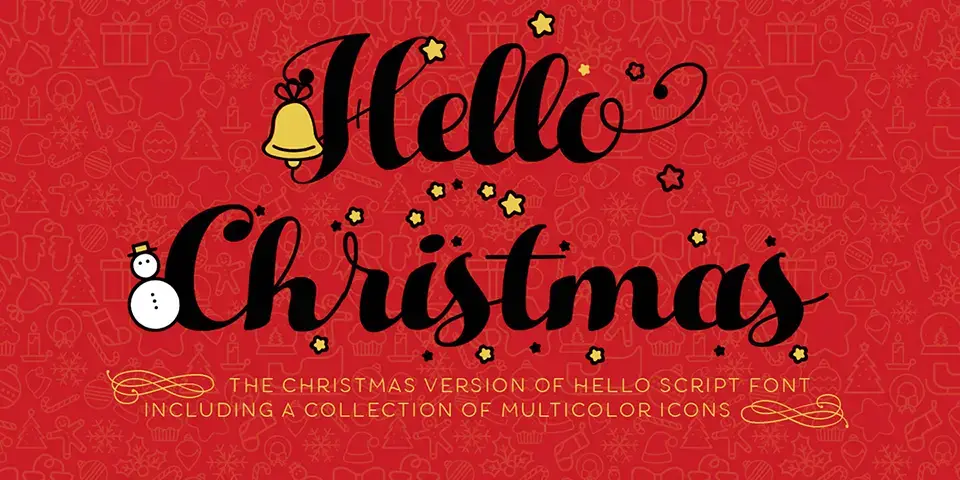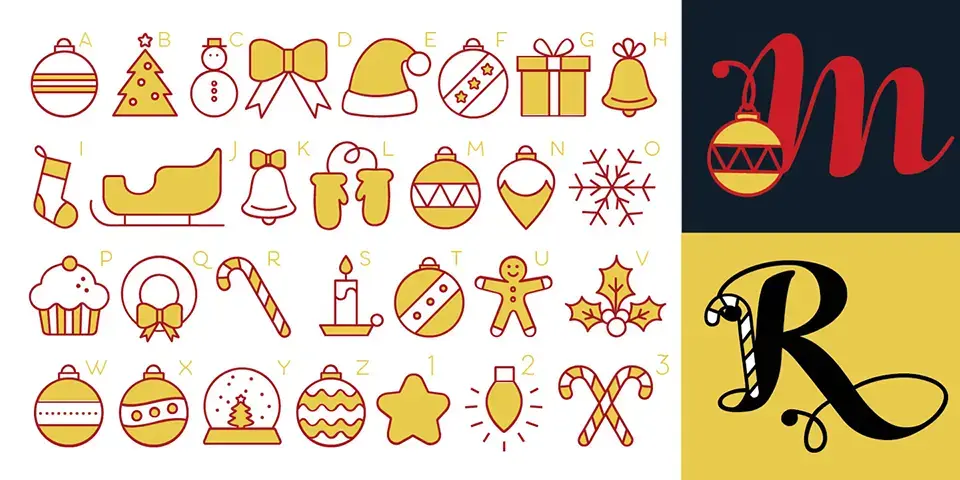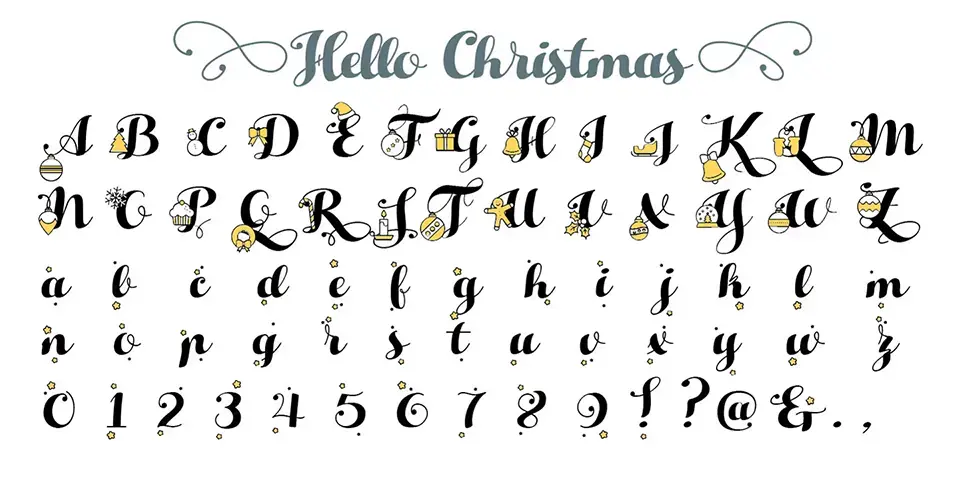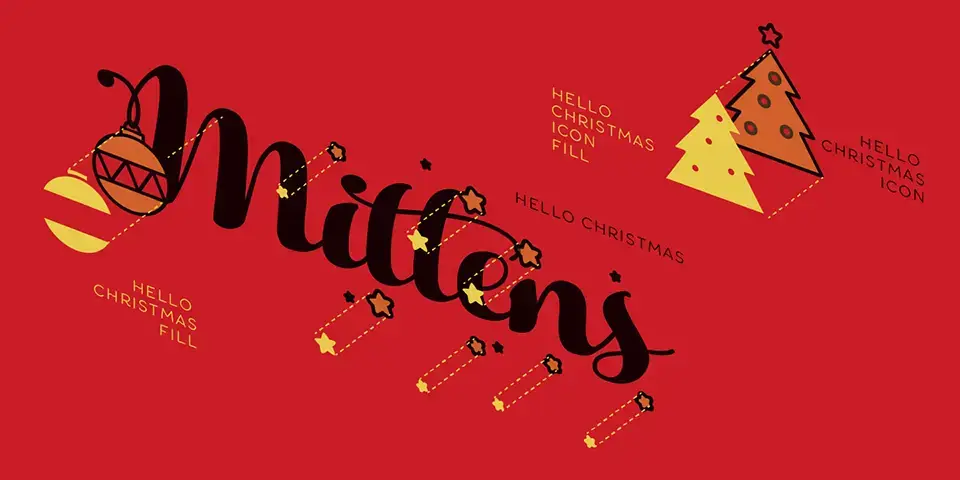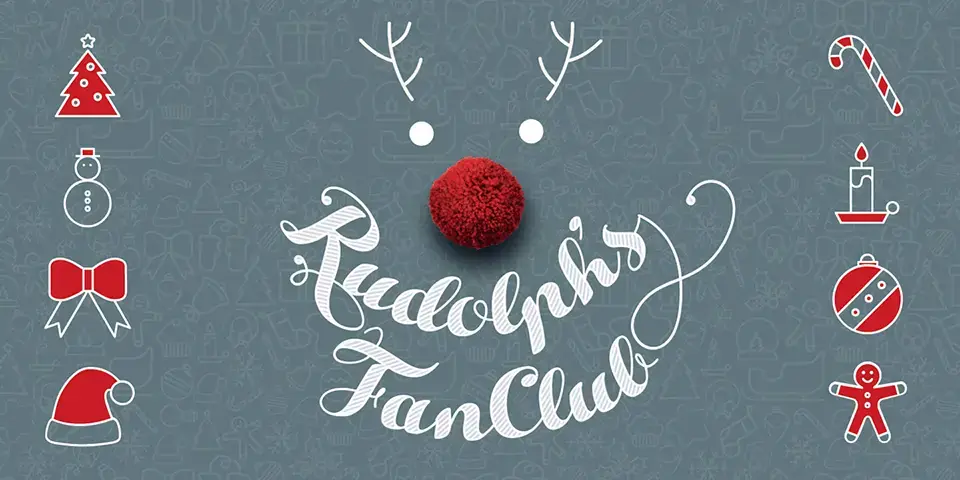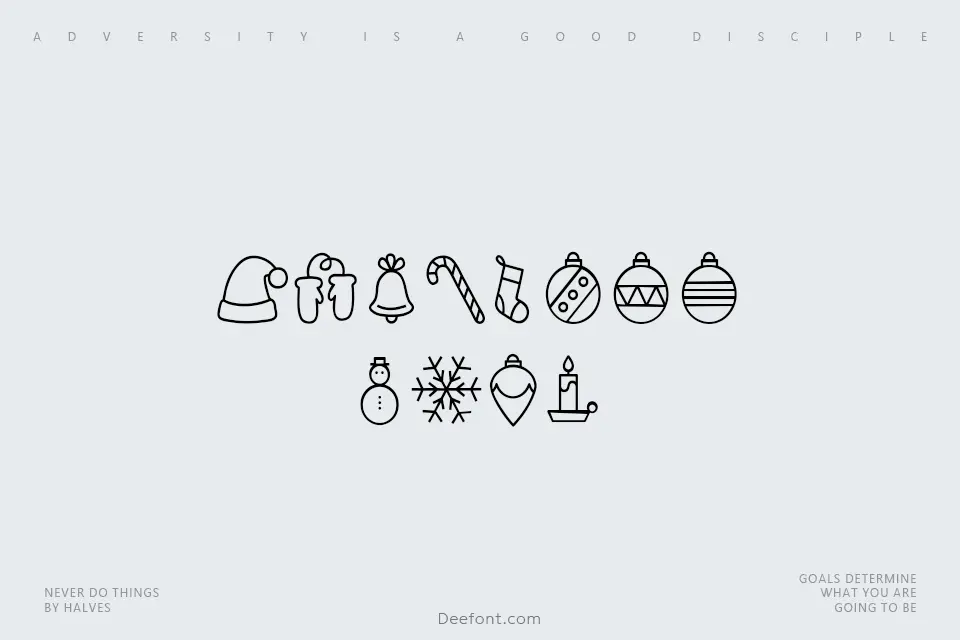
Hello Christmas Icons Font
Hello Christmas Icons is a versatile multilayer color dingbat and icon font family featuring festive Christmas-themed symbols and decorative elements. Designed with artistic flair, this font includes 64 unique glyphs perfect for holiday projects, greeting cards, and seasonal designs. Each icon is meticulously crafted with multilayer color fill effects, providing rich visual depth and vibrant aesthetics. The font seamlessly integrates with the Hello family, which includes the Hello Script calligraphic typeface and Hello Sans companion. Ideal for designers seeking elegant holiday typography, this font combines playful Christmas aesthetics with professional quality.